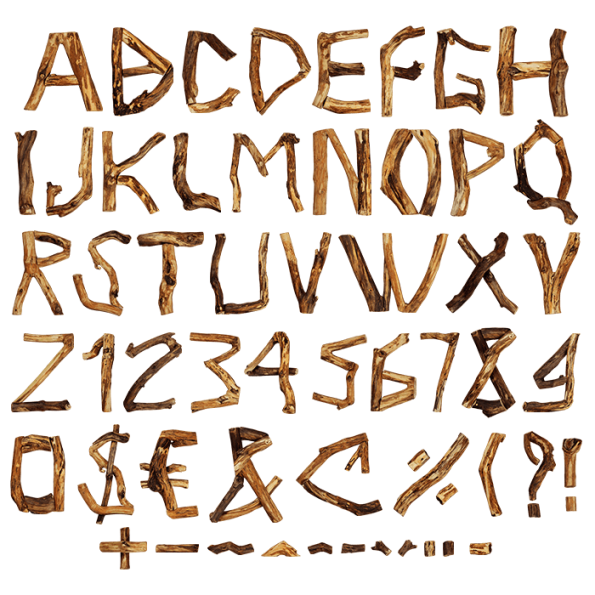
Craft Wood Font. Rough Branch Pieces Cut Into Letters
Craft Wood Font cuts every letter from rough branch pieces, bark edges and all. The wood runs honey gold through to burnt brown, with knots, splits and dark scorch marks left in place. Pieces butt together at the joints rather than blending, so each stroke shows where one length of timber ends. Nobody sanded any of it smooth.
Cut, Not Milled
The Craft Wood Font looks built by hand in a shed, of course. Every stroke is a piece of branch, trimmed to length and pushed against the next one, so the joints stay visible. Grain runs the wrong way at some corners, and that mismatch is deliberate. Because no two lengths match, each letter carries its own knots and splits. Naturally the alphabet never settles into a pattern.
The Craft Wood Font Runs From Honey to Char
Naturally, half the appeal sits in the timber itself. Pale sapwood sits next to deep amber heartwood, while black scorch streaks run along the cut faces. Bark clings to some edges too, which stops the letters looking machined. Look closely and saw marks show on the end grain as well. Since the tone stays warm throughout, the set reads friendly rather than heavy.
Animated wooden capital of the Craft Wood Font
Campsites, Cabins and Craft Labels
Above all, anyone selling something handmade will find a use for the Craft Wood Font. Brewery labels, campsite signage, scout badges, farm-shop packaging and outdoor posters follow easily, because the material says workshop before a word is read. We framed it as a print and pressed it onto a green tee, and the warmth held. Dark grounds make the grain pop, of course. Small sizes still hold, since the knots simply read as texture.
Dark cover artwork with the name set in the Craft Wood Font
Wooden letter E beside the full Craft Wood Font character map
Dark book cover with a large timber initial from the Craft Wood Font
Framed prints on white fabric carrying a short line about nature in the Craft Wood Font
Green t-shirt printed with two words in the Craft Wood Font
Two dark framed posters set in the Craft Wood Font leaning on a floor
Open magazine with a wooden initial and a short nature line in the Craft Wood Font
Craft Wood Font letters and numbers shown on a transparent background